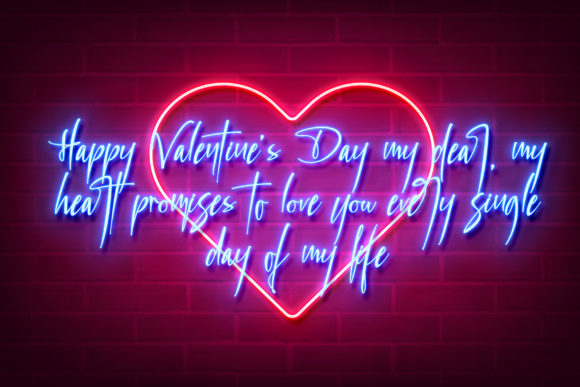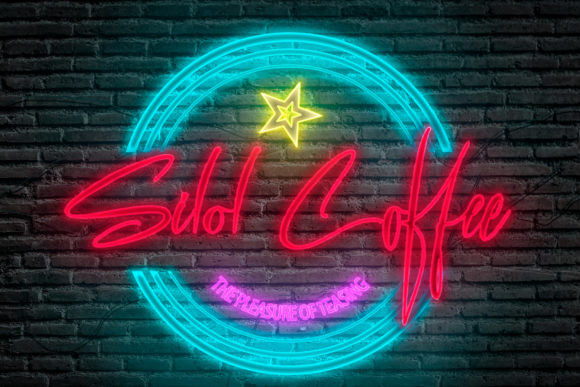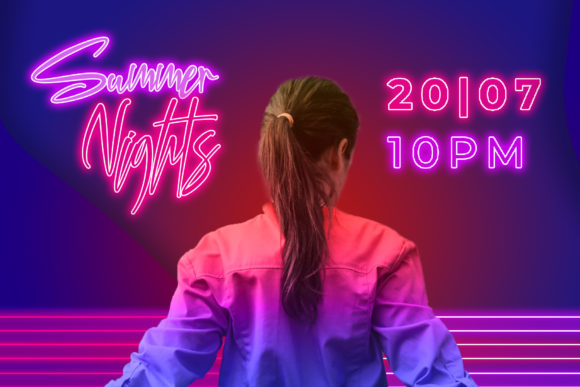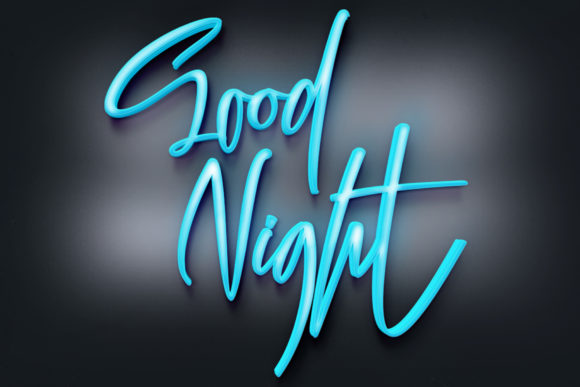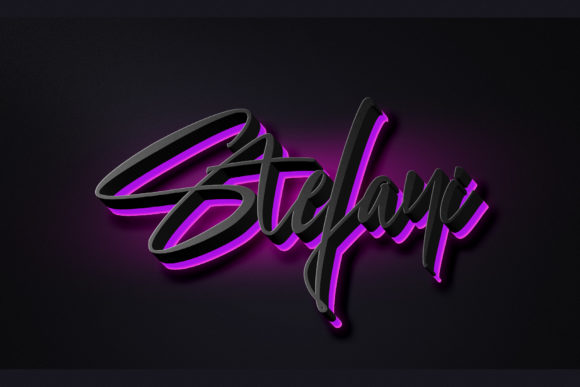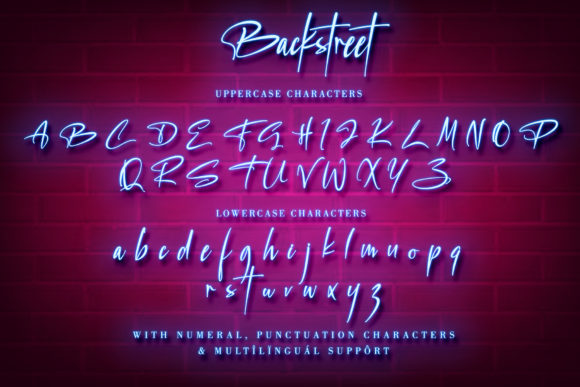
Discovering the Charm of Backstreet Font
Do you ever find yourself doodling in a notebook, lost in a world of creative expression? That’s exactly where I was when I first stumbled upon the Backstreet Font. The gentle curves and whimsical flair of its handwritten style had me hooked from the very start.
As it turns out, Backstreet is a typeface designed to evoke a sense of elegance and femininity, while maintaining great readability. Its unique characteristics make it a valuable addition to any designer’s toolkit, perfect for projects that require a touch of personality and whimsy.
Whether you’re a seasoned pro or just starting out, the Backstreet Font is sure to inspire your next creative project. With its versatility and charm, it’s no wonder why designers are falling in love with this beautifully crafted typeface.
- Unique Characteristics: The Backstreet Font features a unique blend of modern and vintage elements, with intricate details and subtle texture, making it an ideal choice for designers seeking a distinctive look.
Backstreet Font Review
I recently had the chance to work with the Backstreet Font, and I must say it’s a unique addition to any design project. ✨ One thing that works well is its versatility – it’s suitable for a wide range of designs, from headings to body text. It’s also quite readable, even at smaller font sizes. ✨ The font’s retro vibe adds a touch of nostalgia that can be really effective in the right context. ✨
However, there are a few limitations to consider. ⚠️ The font’s consistency can be a bit hit-or-miss, with some characters looking a bit rougher than others. ⚠️ Additionally, the font may not be the best choice for projects that require a lot of text, as it can start to feel a bit fatiguing to read.
Overall, I think the Backstreet Font is a great option for designers who want to add a bit of personality to their work. It’s not a one-size-fits-all solution, but it can be a really effective choice in the right situations.
For the most effective use of Backstreet Font, use it in bold or italic styles to add emphasis to headings or titles.
It’s also ideal for creating a unique and eye-catching visual identity for your brand or project.
Use it sparingly to add a touch of personality and whimsy to your designs.